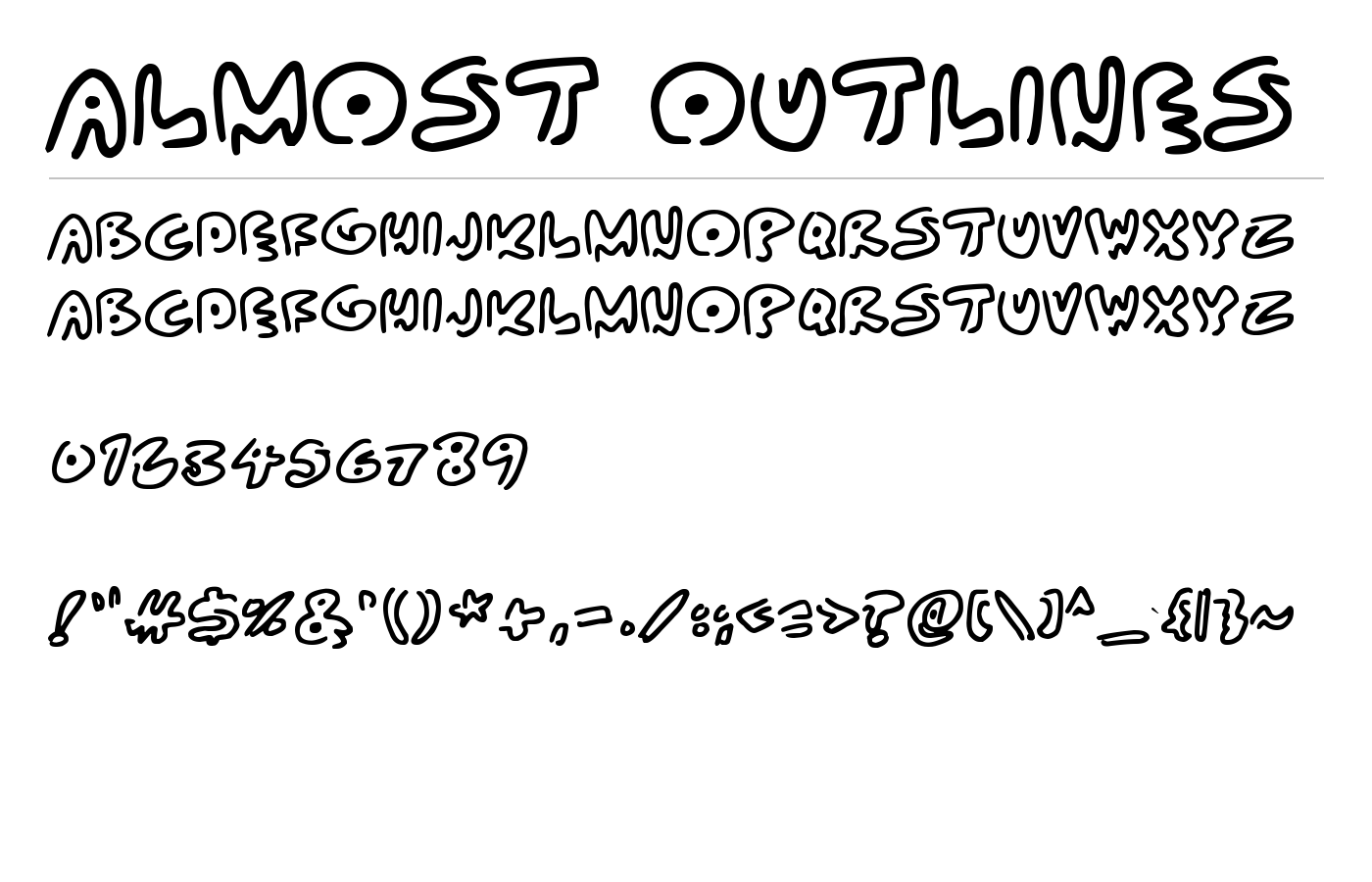
Almost Outlines Font is a playful and quirky sans serif typeface with a hand-drawn, outline style that feels both casual and creative. Its irregular shapes and lively strokes make it great for informal designs like posters, children's books, and fun branding where a unique and energetic vibe is needed. This font works best for headlines or display use, adding personality and charm without sacrificing readability.
Almost Outlines Font
About Almost Outlines Font